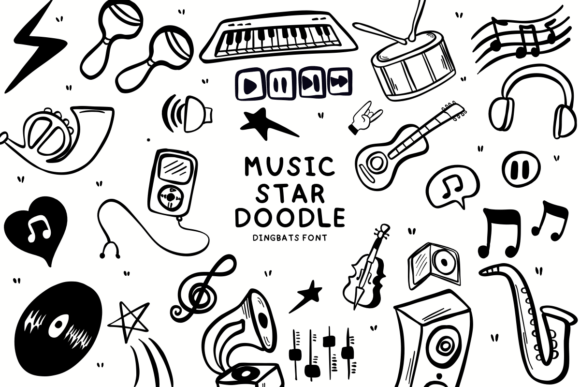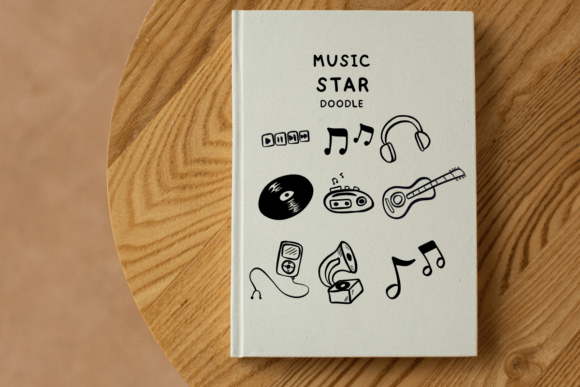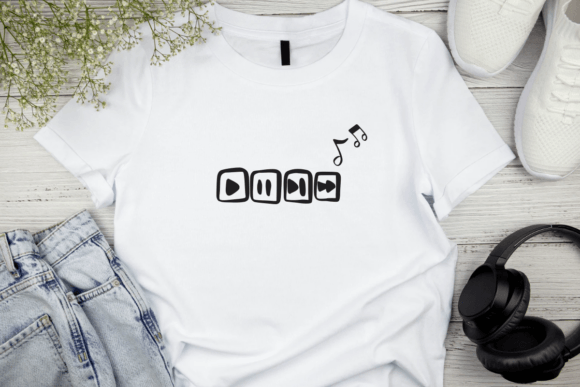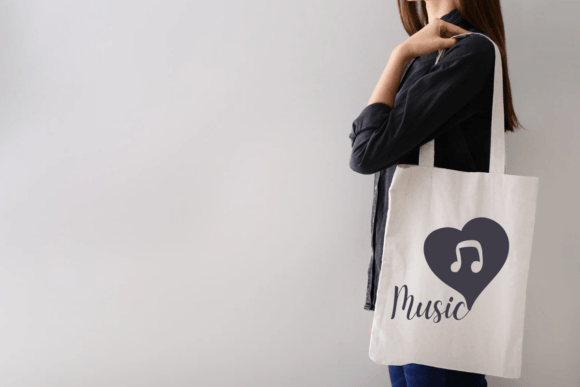
Music Star Doodle Font
About the Music Star Doodle Font
Add a touch of class to your work with the Music Star Doodle Font, a truly exceptional typeface. Music Star Doodle is a dingbats font with a musical theme. This font can enhance your creative projects such as wedding invitations, DIY, crafts, decorations, logos, and many other creative ideas.
Its playful, hand-drawn aesthetic makes Music Star Doodle ideal for projects needing a lighthearted and approachable feel. Excellent choices include children’s books, branding for music-related businesses (especially those targeting a younger demographic), and playful packaging designs. However, its low readability makes it unsuitable for body text or UI elements requiring clear communication.
Consider pairing Music Star Doodle with a clean sans-serif like Open Sans for text elements, creating a balance between the whimsical dingbats and easily readable body copy. Alternatively, a classic serif like Merriweather can provide a sophisticated contrast, grounding the playful nature of the doodle font. Avoid pairing it with other highly decorative fonts, which would create visual clutter.
The font’s core personality is undeniably cheerful and informal. It projects a sense of fun and creativity, making it a strong choice for brands that want to communicate approachability and energy.
Music Star Doodle Font Example